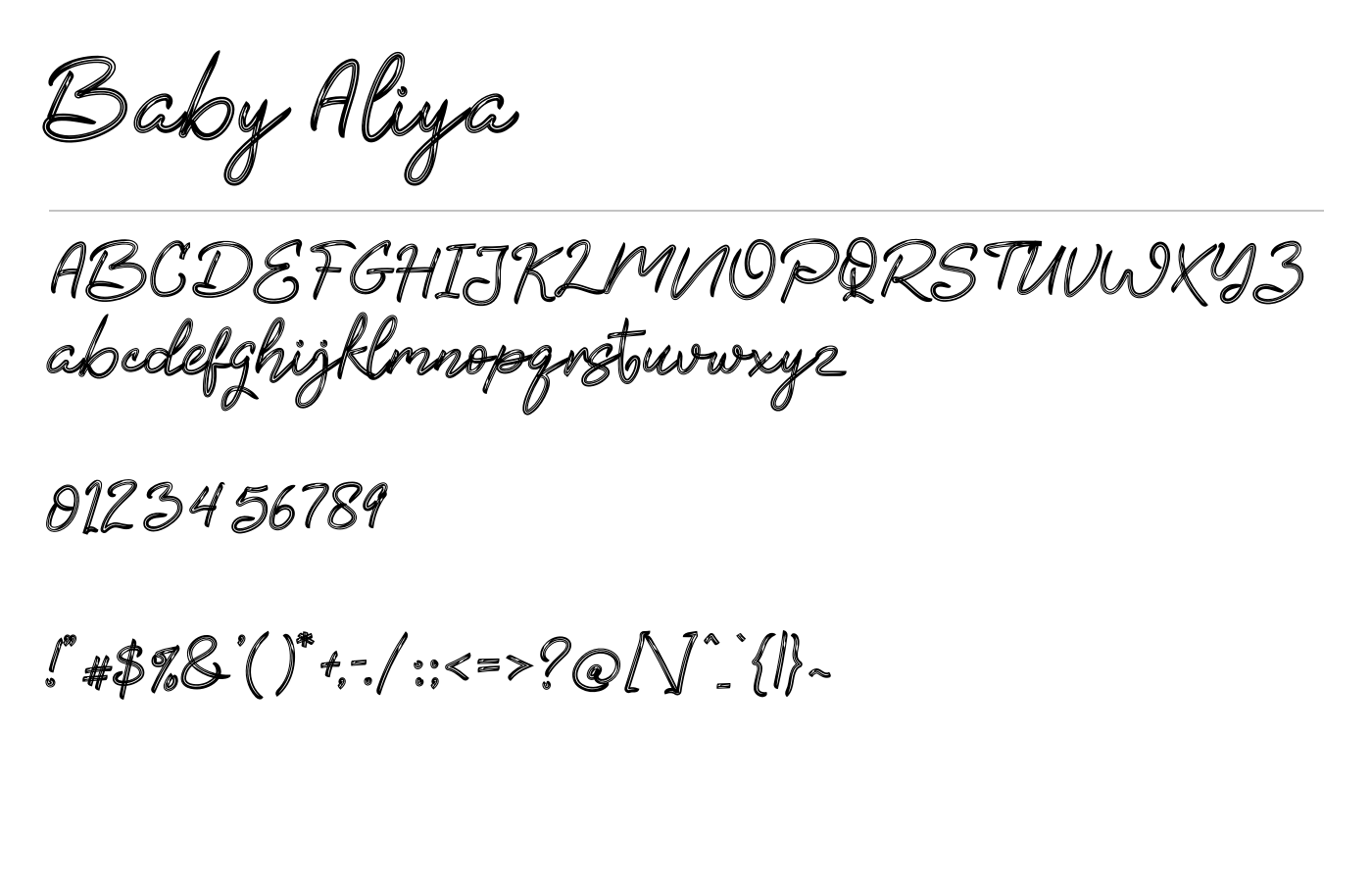
Baby Aliya is a playful and elegant script font featuring flowing, hand-drawn letterforms with a casual yet refined style. Its medium weight and slightly condensed width give it a dynamic and friendly appearance, making it ideal for creative branding, invitations, and eye-catching headlines. This font works beautifully where a personal, artistic touch is desired to convey warmth and charm.
Baby Aliya Font
About Baby Aliya Font